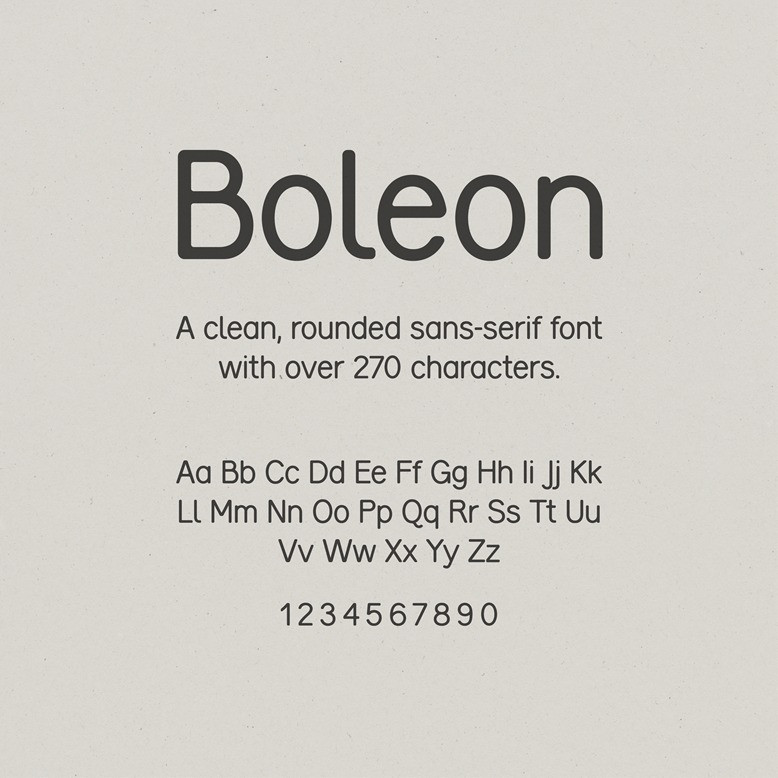
Boleon Sans Serif Font, A clean, rounded sans-serif font with over 270 characters. Perfectly fit for branding, logo, wedding things, greeting cards, fashion, lookbook, marketing promotion, anytime you want to look fancy elegant but still casual.
Boleon Font
Boleon
290 Characters